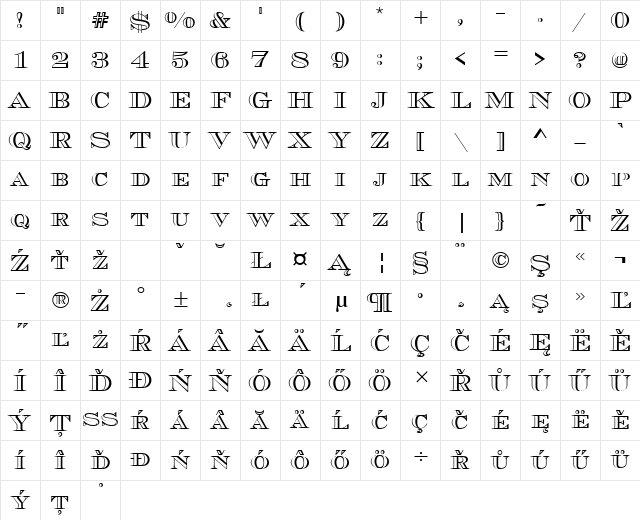
ChevalierOpeSCDEE Regular
Design Context for ChevalierOpeSCDEE
ChevalierOpeSCDEE is a composed and adaptable typeface that performs quietly and consistently across a wide range of design contexts.